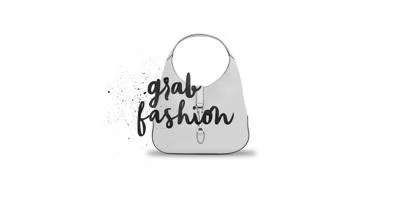
Blog Script
Blog Script Font
Blog Script Font is perfect for lifestyle blog headers, social media graphics, personal branding materials, fashion magazine layouts, beauty brand identities, influencer marketing campaigns, online journal designs, creative portfolio websites, feminine product packaging, and digital content creation. This elegant script typeface excels in applications where personal expression, casual sophistication, and authentic voice need to be communicated with relatable charm and contemporary digital appeal.
Blog Script Font is exciting because it perfectly captures the authentic spirit of modern digital storytelling with sophisticated handwritten elegance. Its flowing script characteristics and casual refinement create an immediate connection to personal blogging culture and authentic content creation. The font's distinctive letter connections and contemporary baseline variations make it particularly compelling for brands seeking to communicate authenticity, relatability, and personal touch in their digital marketing communications and lifestyle brand identities.
The Blog Script Font family includes multiple weight options: Light, Regular, Medium, and Bold, along with complementary sans-serif versions that maintain visual harmony while offering typographic flexibility. Each weight preserves the characteristic handwritten appeal while providing different levels of visual emphasis, giving content creators complete flexibility for building engaging digital brand hierarchies.
For designers creating digital content brands or lifestyle marketing materials, Blog Script Font offers authentic personal character with professional design quality. Whether you're developing influencer brand identities, digital magazine layouts, or social media marketing campaigns, this versatile typeface provides the perfect foundation for conveying personal authenticity and contemporary appeal. The font's extensive character set includes social media symbols and contextual alternates that enhance digital design applications and modern content storytelling.